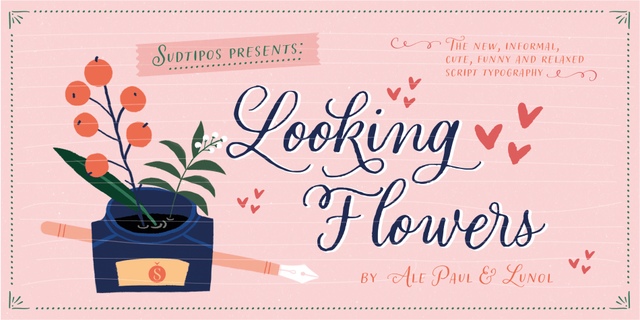
Looking Flowers Font
Looking Flowers Font is ideal for botanical garden materials, floral design studios, nature-inspired wedding invitations, flower shop branding, garden center communications, spring festival promotions, botanical illustration projects, eco-friendly beauty products, mindfulness meditation materials, and natural wellness campaigns.
What makes Looking Flowers Font so exciting is its enchanting embodiment of natural beauty and floral elegance that captures the delicate grace and life-affirming power of blooming flowers through poetically inspired typography. This beautifully crafted typeface features organic letterforms with petal-inspired proportions and garden-fresh character variations that immediately convey growth, beauty, and the transformative connection between human consciousness and natural wonder. The font's botanical construction and nature-loving aesthetic create an instant sense of peaceful contemplation and natural harmony, making it ideal for projects that need to communicate environmental awareness, natural beauty, and the soul-nurturing power of flower appreciation to audiences seeking meaningful connections with nature and authentic botanical experiences.
The Looking Flowers Font family typically includes multiple blooming weights and natural styles, often featuring light, regular, and bold variations along with gracefully flowing italic versions. Botanical font collections frequently offer additional floral elements such as flower symbols, garden ornaments, and nature-inspired decorations that enhance the organic aesthetic and provide designers with comprehensive tools for creating genuinely natural and botanically beautiful communications.
Looking Flowers Font provides designers with an invaluable tool for creating naturally beautiful and botanically compelling designs. Whether you're developing materials for environmental organizations, crafting branding for organic flower farms, or designing communications for wellness centers that celebrate the healing power of nature and flower therapy, this font delivers the blooming presence that nature lovers and flower enthusiasts appreciate and find deeply inspiring.
The floral nature of Looking Flowers Font makes it particularly effective for targeting demographics that value natural beauty and environmental consciousness in their personal and lifestyle choices. Garden marketers and wellness professionals will find this font especially valuable for materials that must establish immediate botanical credibility and connect with audiences seeking authentic nature experiences and meaningful flower connections.
What sets Looking Flowers Font apart is its ability to convey natural delicacy while maintaining the strength necessary for effective botanical communication. This balanced characteristic makes it suitable for both gentle wellness applications and robust environmental contexts where projecting natural beauty and maintaining practical functionality must coexist harmoniously.
Professional designers recognize that Looking Flowers Font brings invaluable botanical credibility to projects across industries including horticulture, wellness services, environmental education, and natural beauty products. Its floral character and garden appeal make it essential for organizations whose mission centers on celebrating natural beauty, promoting environmental awareness, and creating meaningful connections between human well-being and the transformative power of flower appreciation.
The thoughtfully crafted botanical authenticity of Looking Flowers Font ensures consistent natural messaging across all flower-focused communication applications while honoring the fundamental relationship between human consciousness and natural beauty.